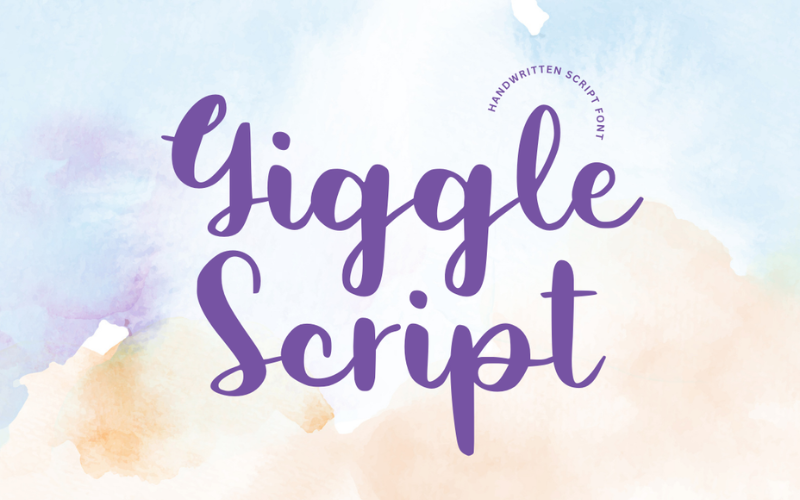
Giggle Script Font Font
About Giggle Script Font
Giggle Script is a playful handwritten script font with a cheerful and casual feel. Its smooth, flowing lines make it perfect for fun, creative projects, invitations, and personal branding. Giggle Script adds a touch of personality and joy to any design.